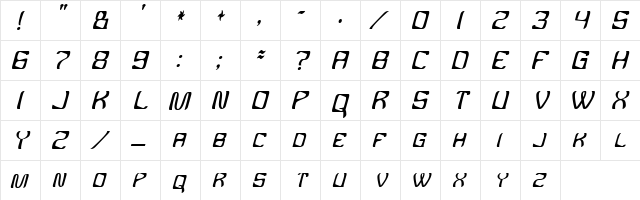
YBandTuner Regular
Design Context for YBandTuner Typeface
YBandTuner is a composed and adaptable typeface that performs quietly and consistently across a wide range of design contexts.